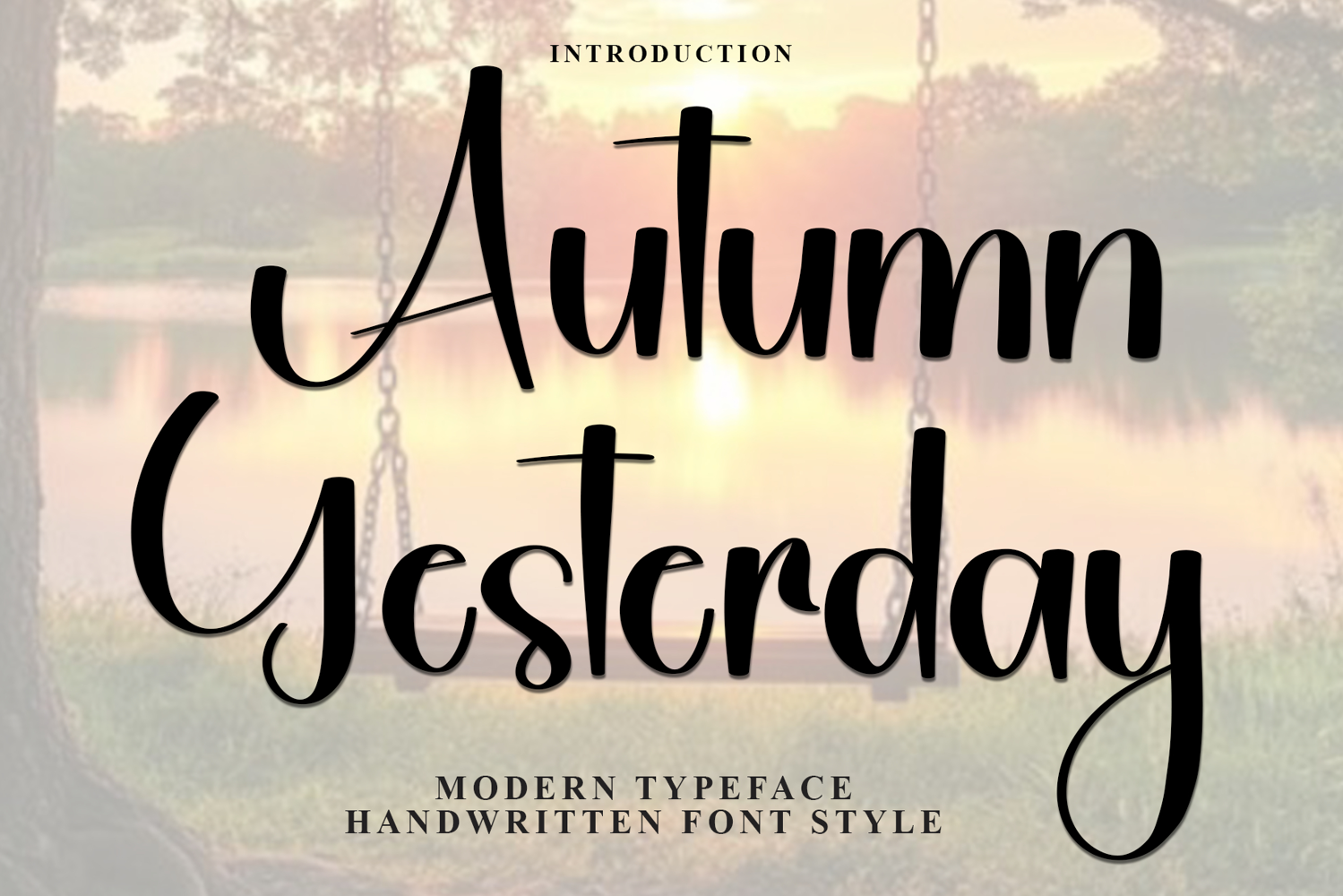
Autumn Yesterday
Autumn Yesterday is a beautiful and eye-catching font designed with a soft, unique touch. Its distinctive strokes give it a special character, making it meaningful and versatile for future use. With various characters, it’s perfect for design projects, crafts, and other creative works.